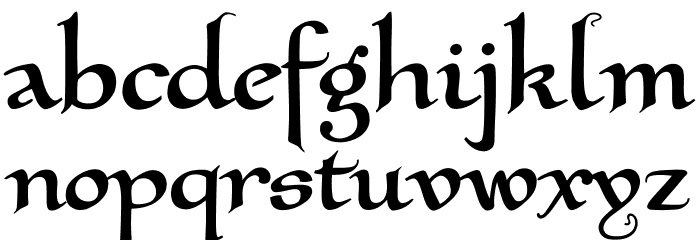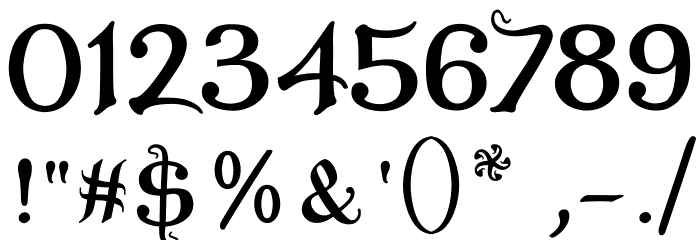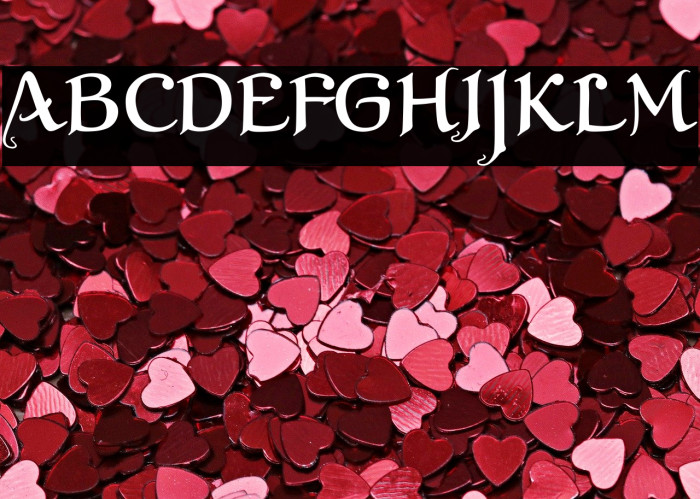
XalTerion Font
This font exhibits a unique and artistic flair, characterized by its decorative and whimsical elements. The uppercase letters feature elegant swirls and curves, giving them a distinct and playful appearance. The lowercase letters maintain a similar style, with some characters incorporating additional loops and flourishes. The numerals are bold and consistent with the overall design, ensuring readability while maintaining the font's artistic nature. Special characters are creatively designed, adding to the font's charm and versatility. This font is ideal for projects that require a touch of creativity and elegance.
A decorative and whimsical font with elegant swirls and artistic flair.
- Proposed Projects: Ideal for invitations, greeting cards, artistic posters, and branding that requires a creative touch.
- Use Case: Headlines, Logos, Artistic projects